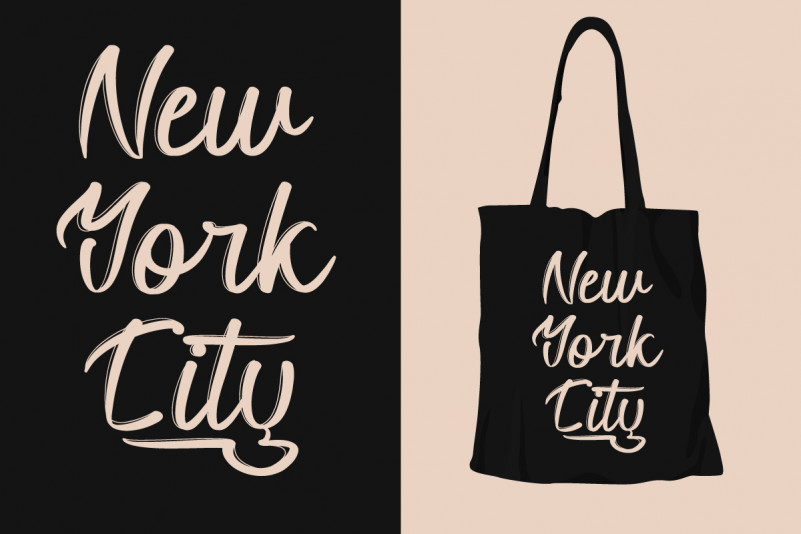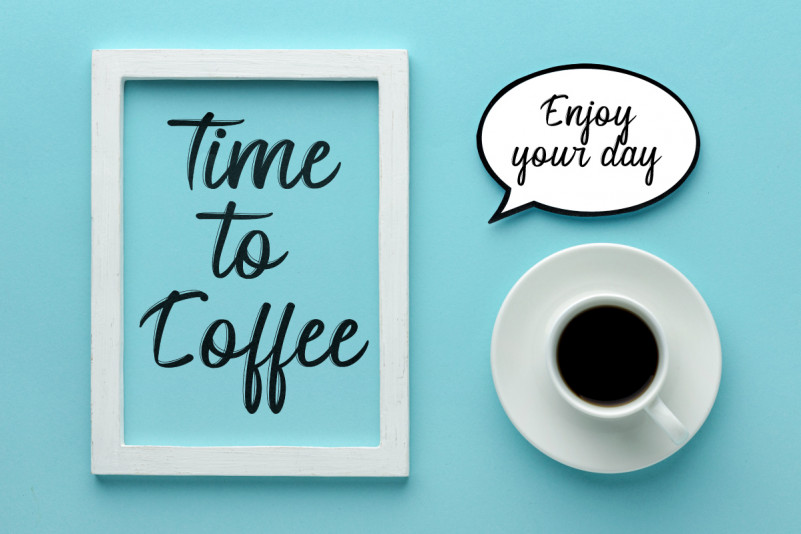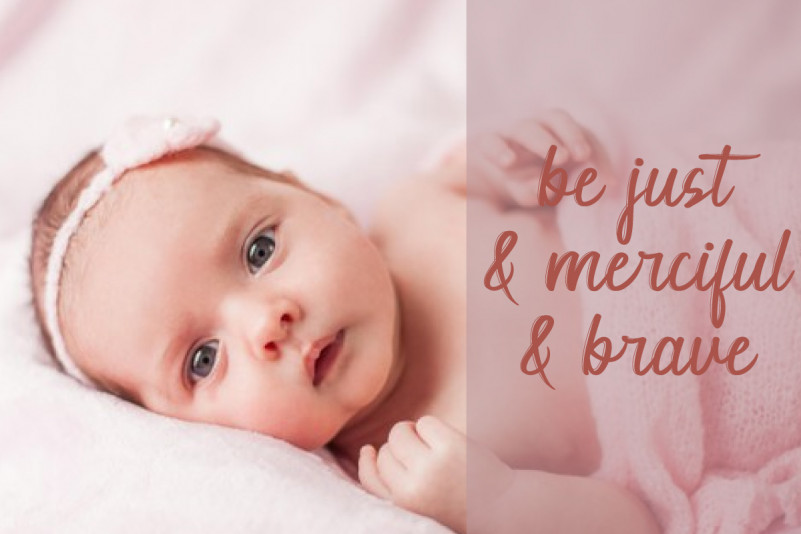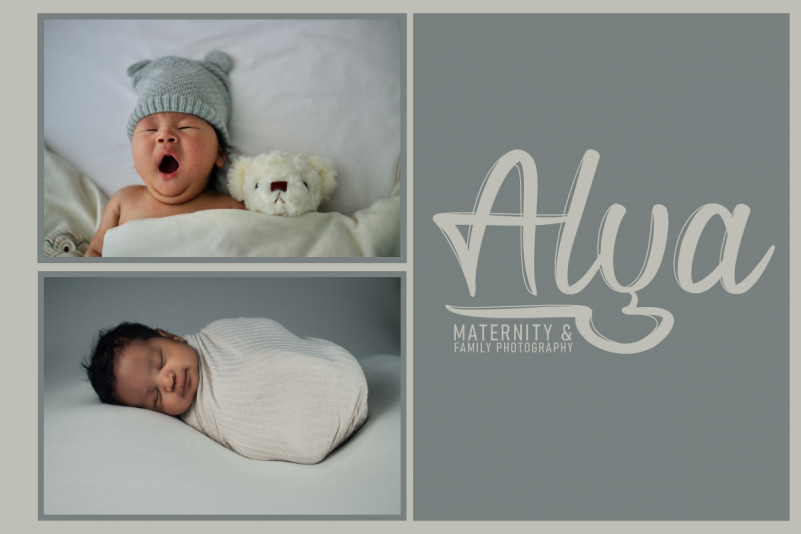
Daughter Font
Daughter Brush Font
This is a brush calligraphy font with a unique style ; delivering a stylish script which is guaranteed to add an eye-catching appeal. The style of this font are stylish, classic, elegant, a fresh new handwritten brush script with a touch of class, and of course, outstanding looks.